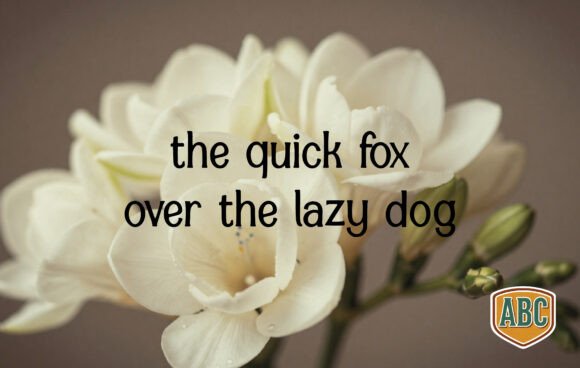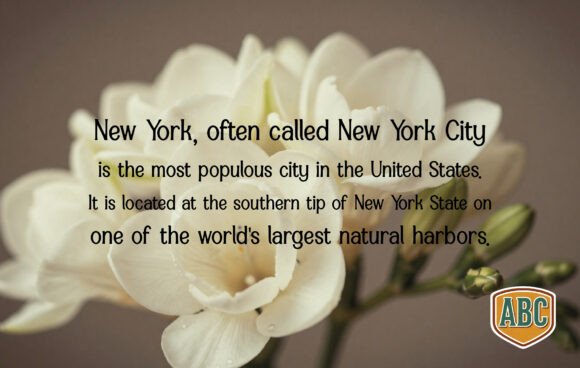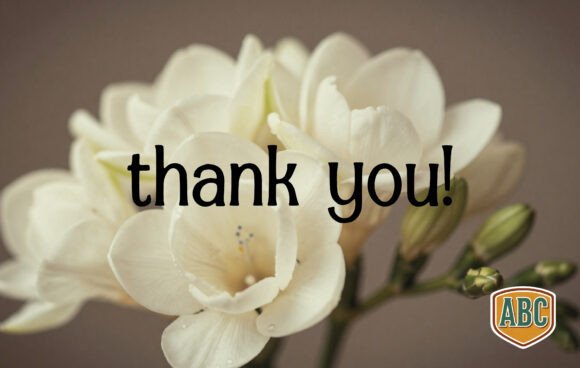
Introduction to Freesia Font
Freesia is a lovely and timeless handwritten font.
Key Features of Freesia Font
Why Choose Freesia Font?
Freesia Font offers exceptional quality and versatility, making it a valuable addition to your design toolkit. Whether you’re creating for personal projects or commercial use, Freesia Font delivers professional results.